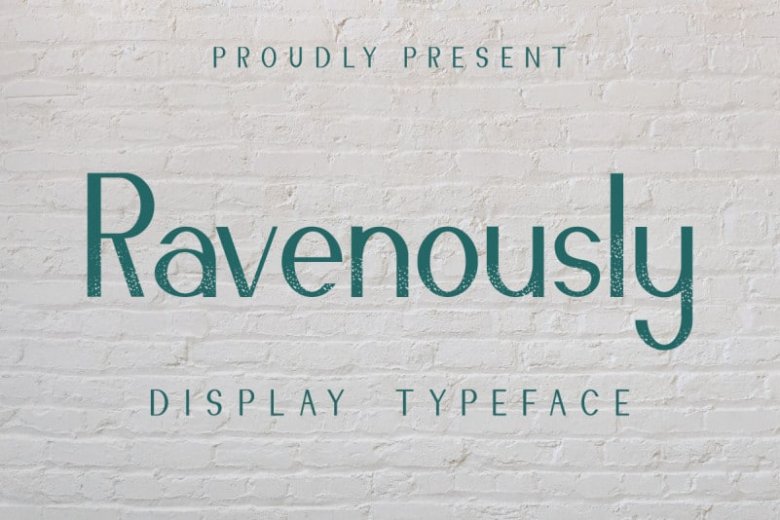
Ravenously Font
Ravenously Sans Serif Font
Ravenously Sans Serif Font is a Display Sans Serif Font with unique style. The character of the font is modern, elegant, luxury, glamour, classic and sophisticated. It will be suitable for almost any projects : logo branding, invitation, finance report, flyer